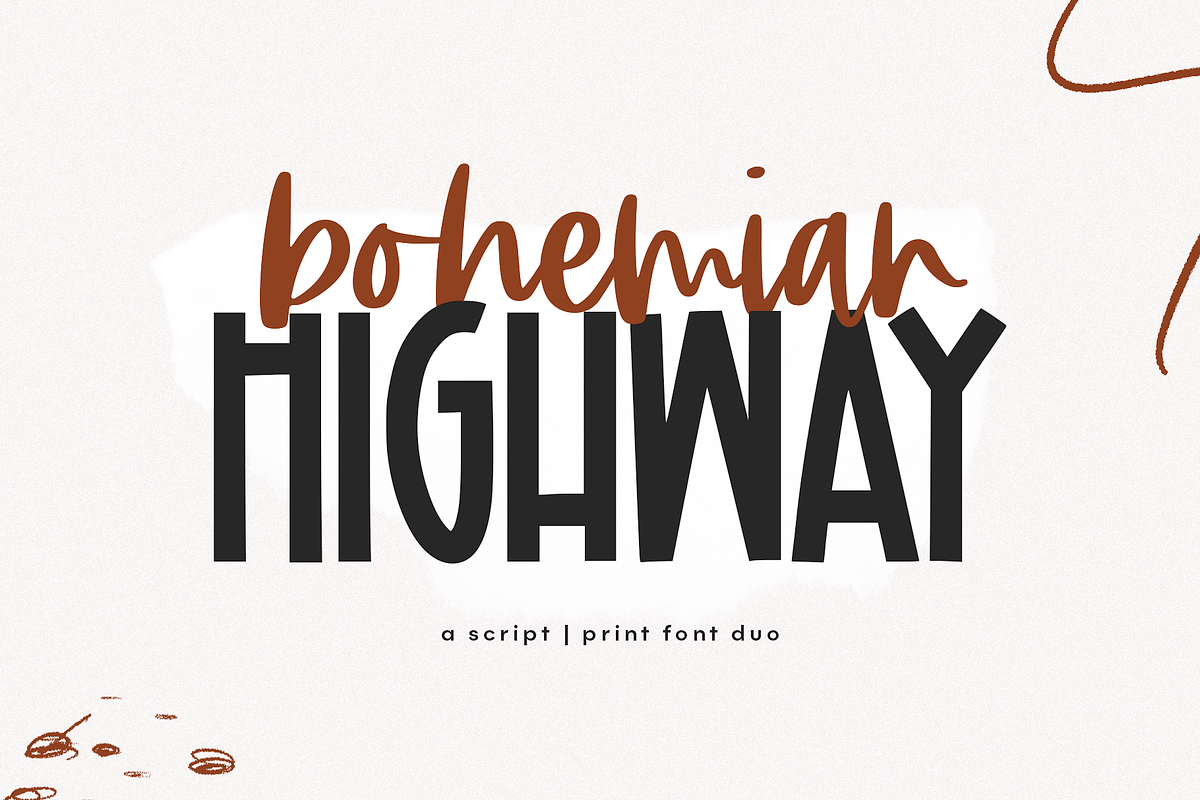
Bohemian Highway | Script Font Duo Free Download
Bohemian Highway | Script Font Duo Free Download is a charming and artistic font pairing that combines a flowing script with a clean sans-serif. Ideal for boho-inspired branding, wedding stationery, blog headers, and lifestyle design, this duo offers a perfect balance of personality and readability.
With its handcrafted feel and effortless style, Bohemian Highway | Script Font Duo Free Download brings a touch of free-spirited elegance to your creative work. This versatile combination allows you to mix expressive script lettering with modern minimalism, making it easy to create eye-catching and cohesive visuals. Test it out in your next passion project and discover how it enhances everything from logos to social media posts—before investing in the full commercial version.